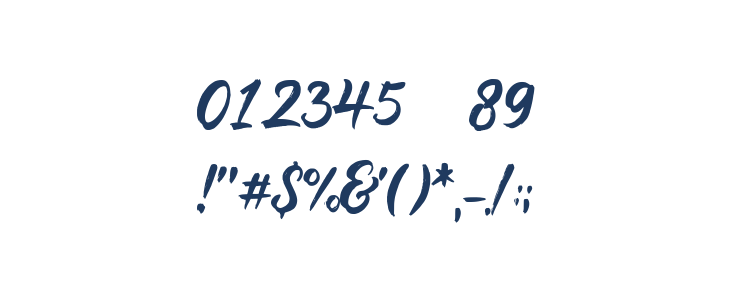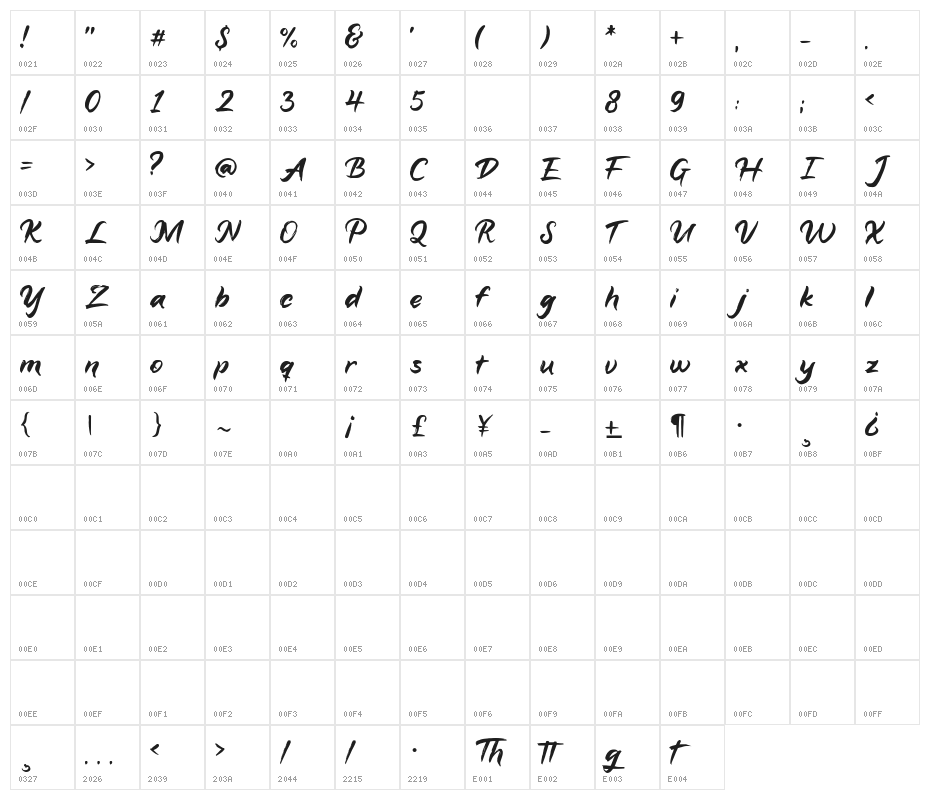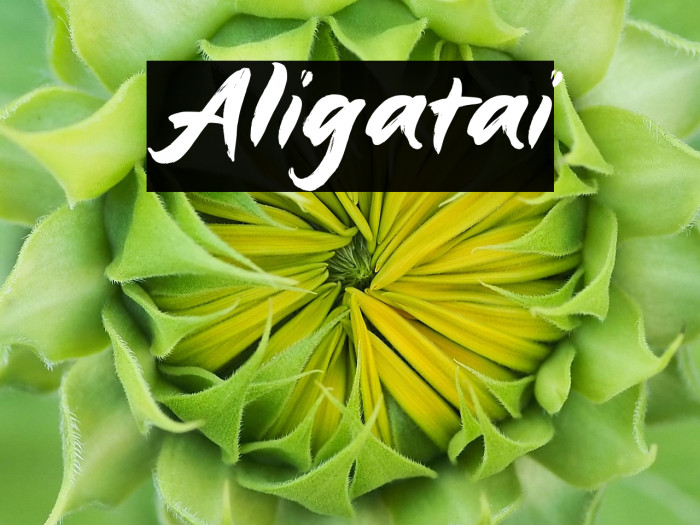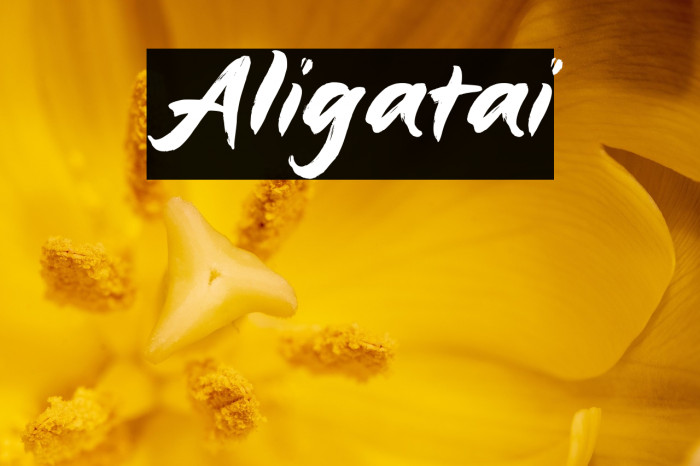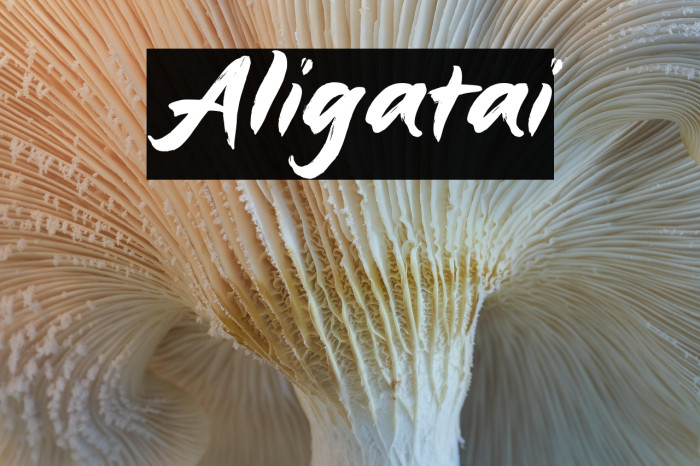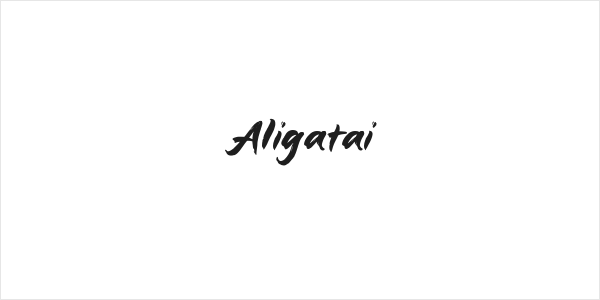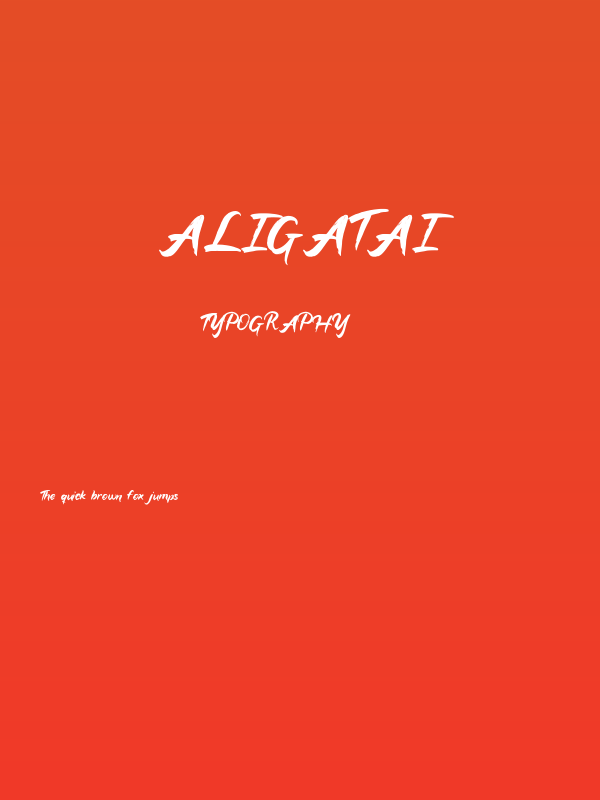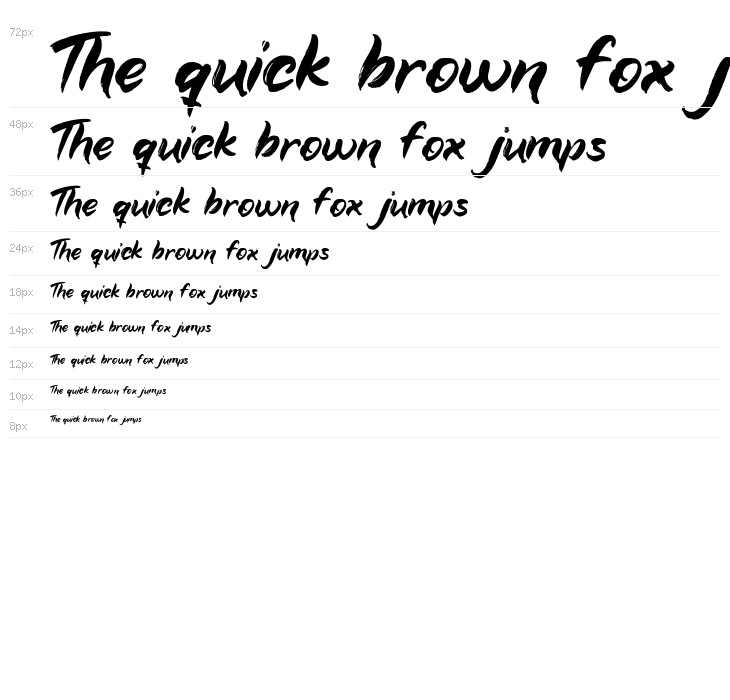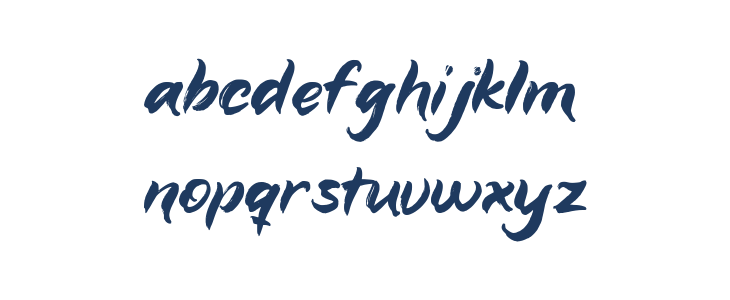
Aligatai Font
Aligatai Description
This font features a dynamic and expressive script style, characterized by its fluid and cursive strokes that mimic the natural flow of handwriting. The uppercase letters are bold and slightly slanted, giving a sense of movement and elegance. The lowercase letters maintain a consistent rhythm, with some letters connecting seamlessly, enhancing the handwritten feel. Numbers and special characters are crafted with the same attention to detail, ensuring uniformity across the typeface. The overall appearance is artistic and lively, making it suitable for creative and informal applications.